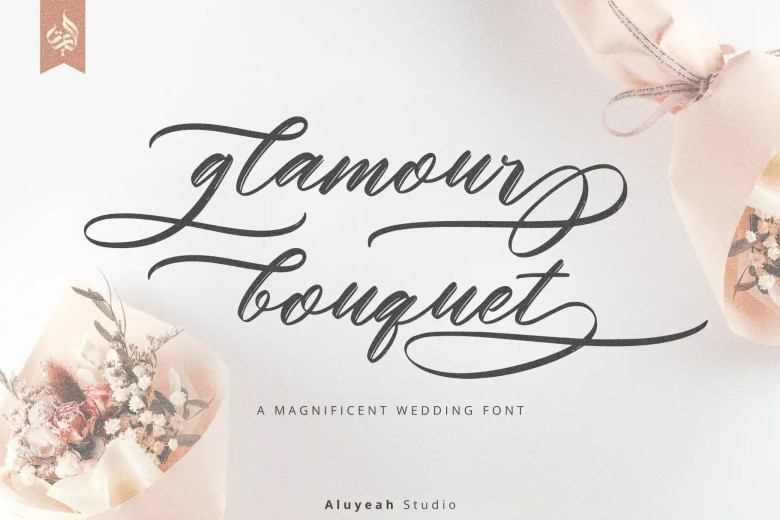
Glamour Bouquet Font
Glamour Bouquet is a magnificent wadding calligraphy font. It’s was inspired by a royal wedding that just took place in our town. Uniting the two empires of the two major cities of our country. Glamour Bouquet gives the impression of luxury, elegance, grandeur, but full of warmth and happiness. Perfect for your big day and one-time-in-life moments. It can be applied to many areas of design.
Glamour Bouquet Calligraphy Font